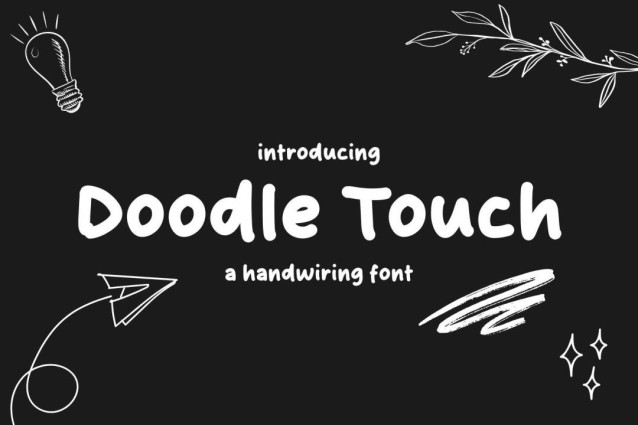
Doodle Touch Font
Doodle Touch Font is a simple and friendly handwritten font. Its natural and unique style makes it incredibly fitting to a large pool of designs. The only limit is your imagination!